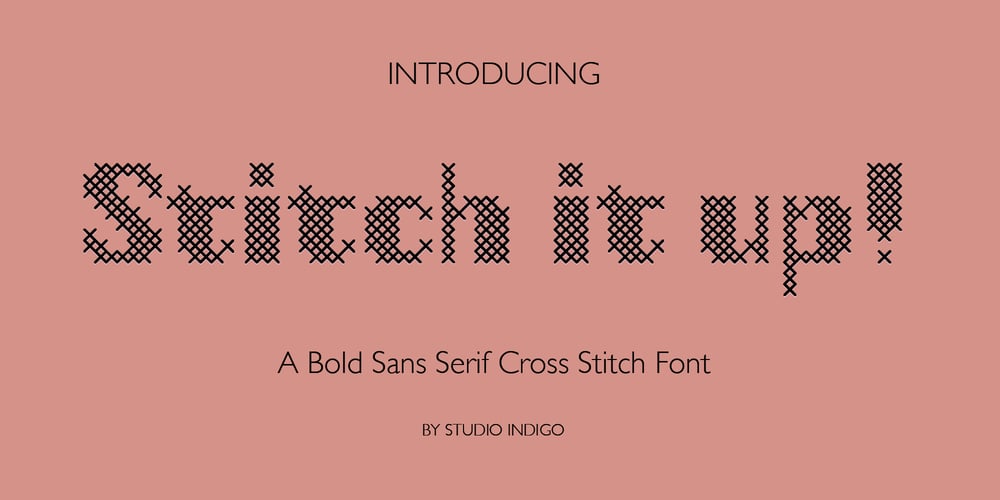
Stitch It Up Font Family was designed by Helena Öhman and published by Studio Indigo. Stitch It Up contains 1 styles and family package options. Stitch it up is a bold sans-serif cross-stitch font. It is intended for headings, advertisements and signs rather than continuous body text. It has multilingual support for all European languages.